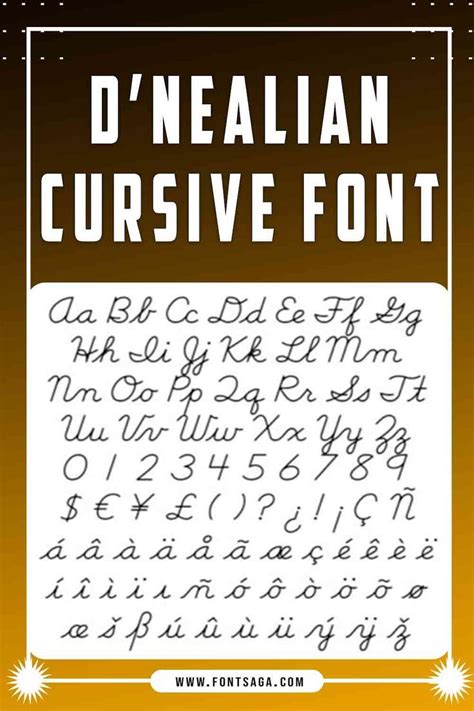
D’nealian Font Great for teachers Cory Fiala
D'nealian Cursive Font. D’nealian cursive is a popular choice for educators and students alike. Contrary to other packages, this.